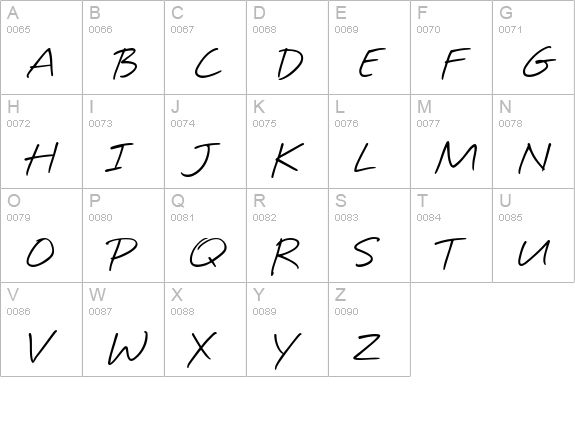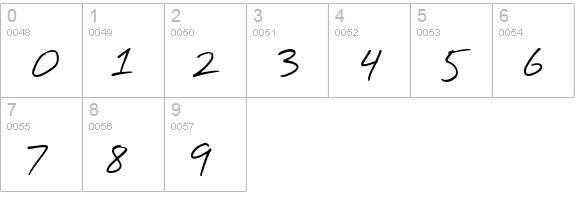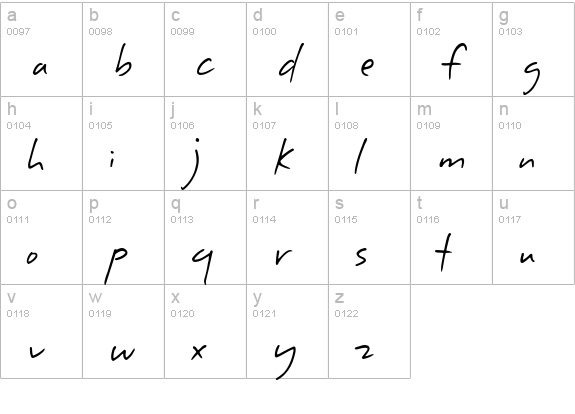
DesertDogHmk Font Details
DesertDogHmk is a bold and dynamic font that exudes a sense of rugged charm and adventurous spirit. Its strong, angular lines and distinctive letterforms make it perfect for adding a touch of personality to any design project. Whether you're working on a poster, logo, or branding materials, DesertDogHmk is sure to make a bold statement. Best of all, DesertDogHmk is available for free download at FontsMarket.com. This means you can easily access this unique font and incorporate it into your projects without any cost. Don't miss out on the opportunity to enhance your designs with the striking appeal of DesertDogHmk – download it today and let your creativity soar!